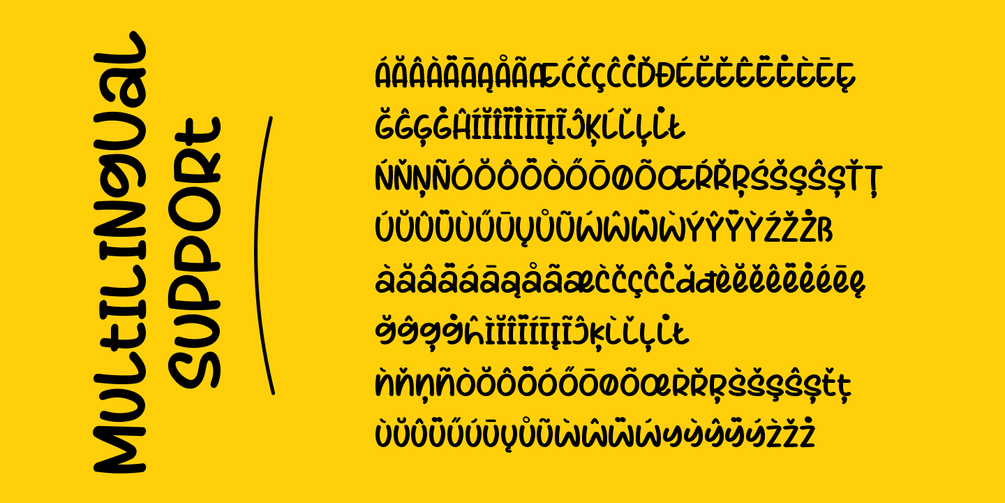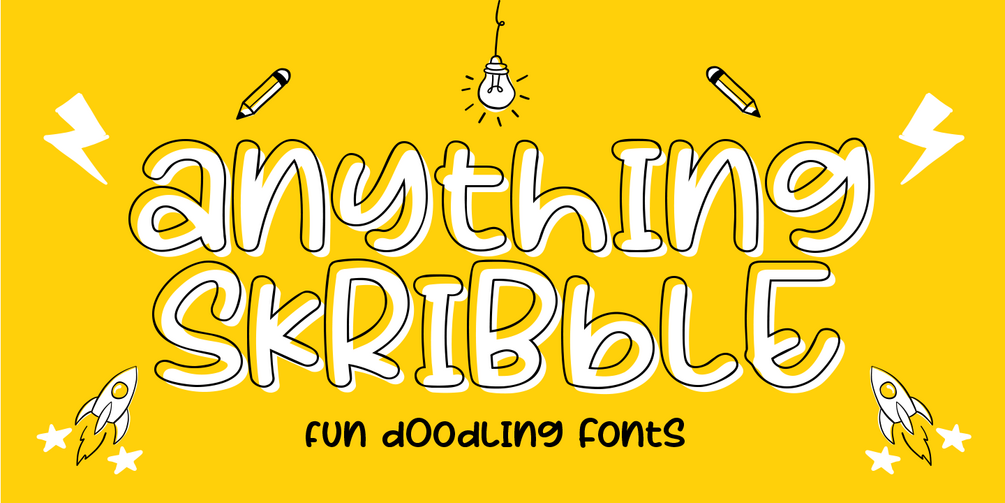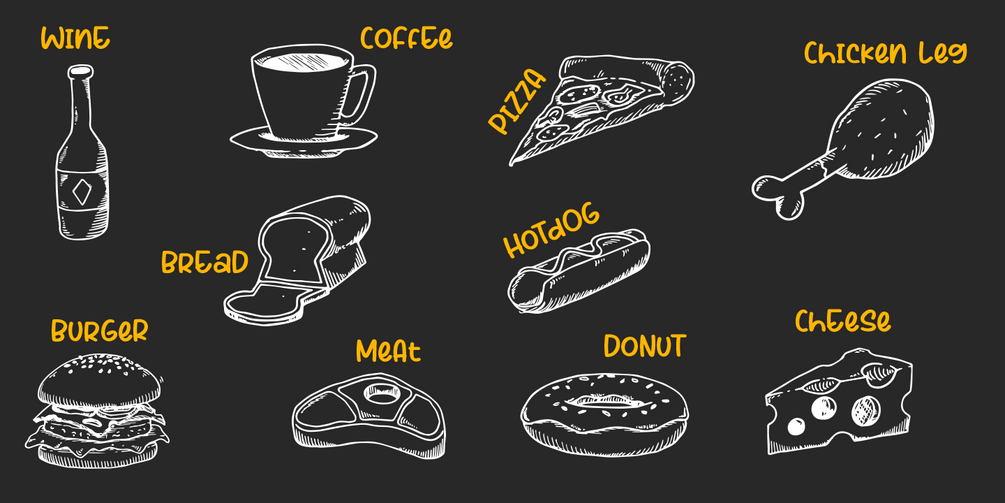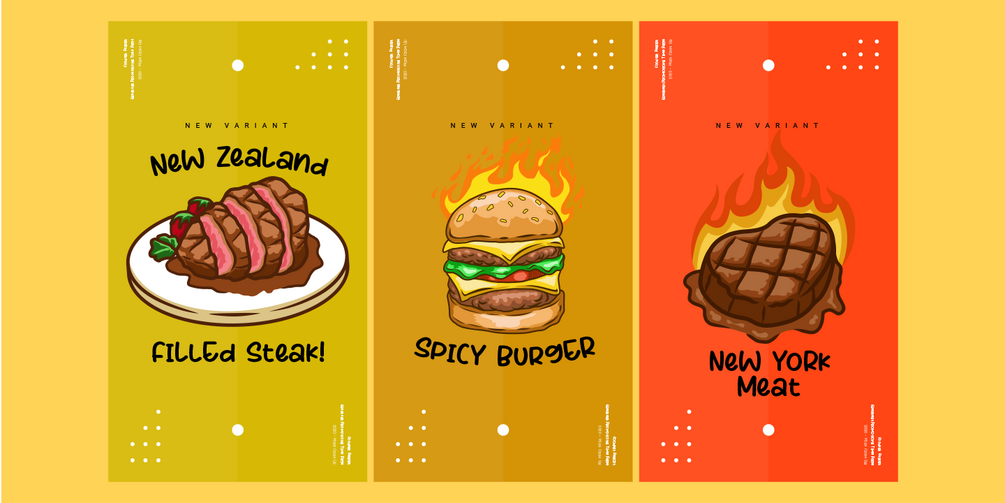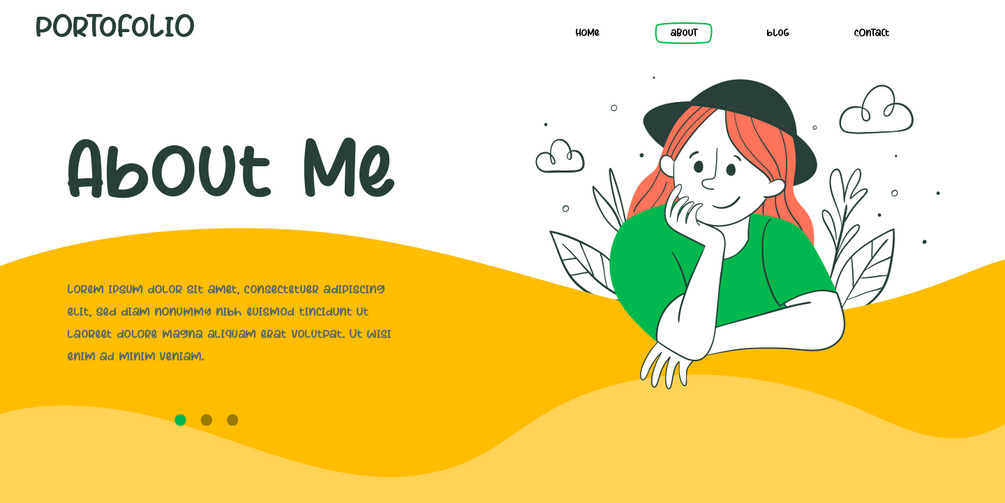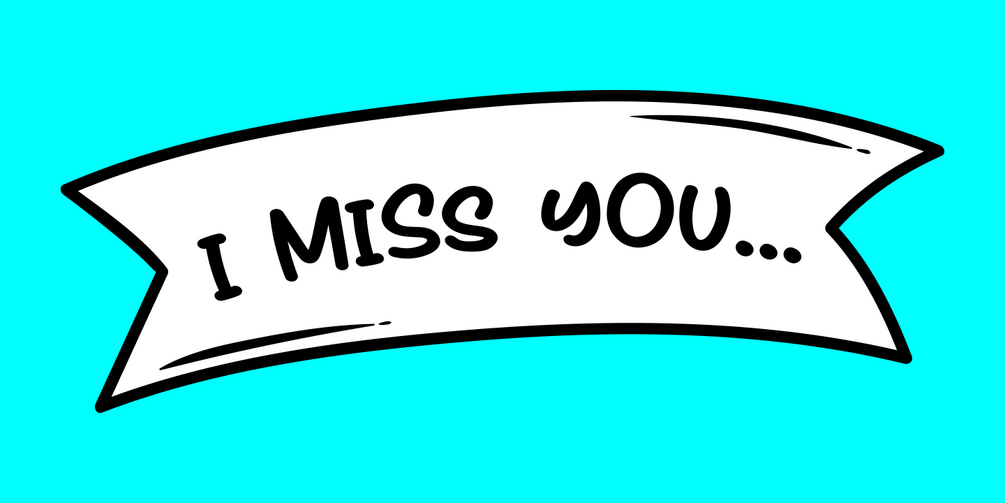
Anthing Skribble - Skribble Fonts
Hello, Introducing the new font "Anything Skribble"
the font was very cute. Match for your doodling, Scribble motion and Etc.
Good readability, good contour.